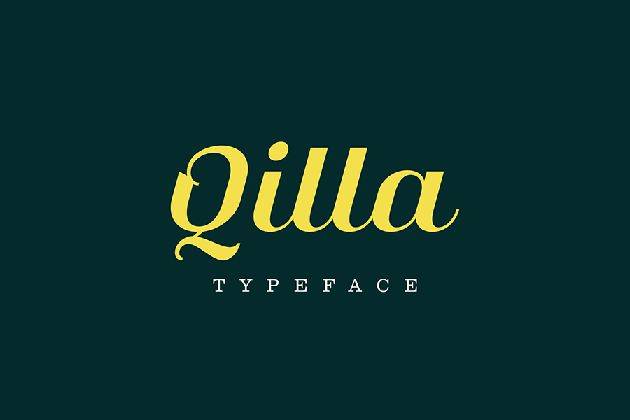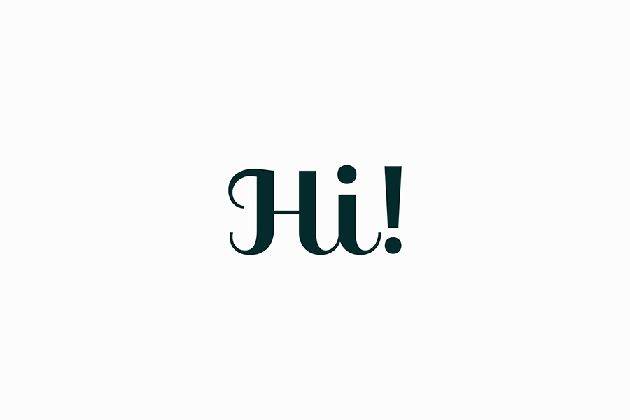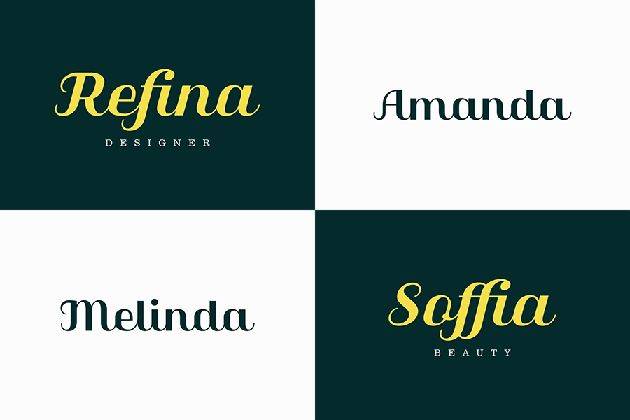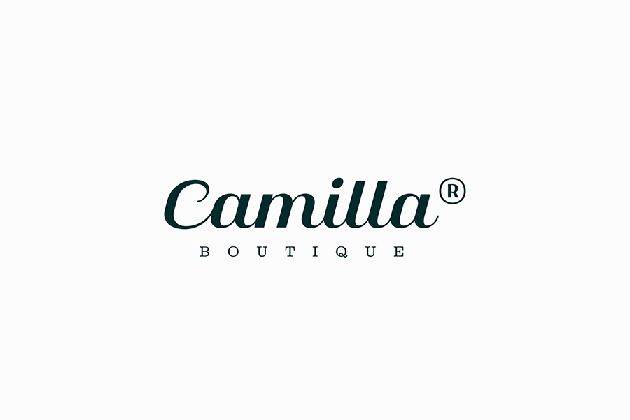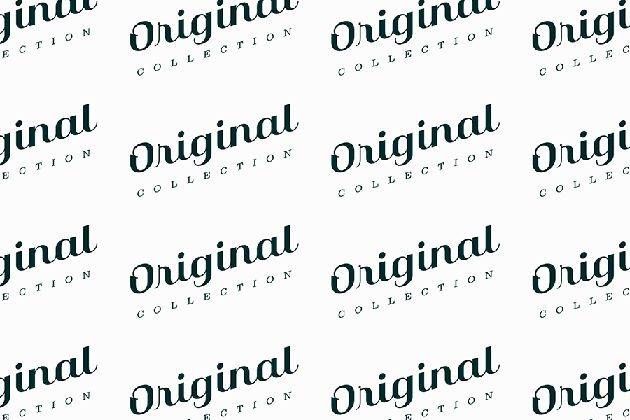
Qilla Serif is an elegant serif font with a graceful italic style characterized by smooth, flowing curves and moderate contrast between thick and thin strokes. Its refined letterforms feature classic calligraphic influences, including distinct single-story 'a' and stylish swashes, giving it a sophisticated yet approachable feel. Ideal for luxury branding, editorial headlines, and invitations, Qilla Serif adds a touch of timeless charm and distinctive personality.
| Font family | Qilla Serif Font Demo |
| Designer | herlannawwi |